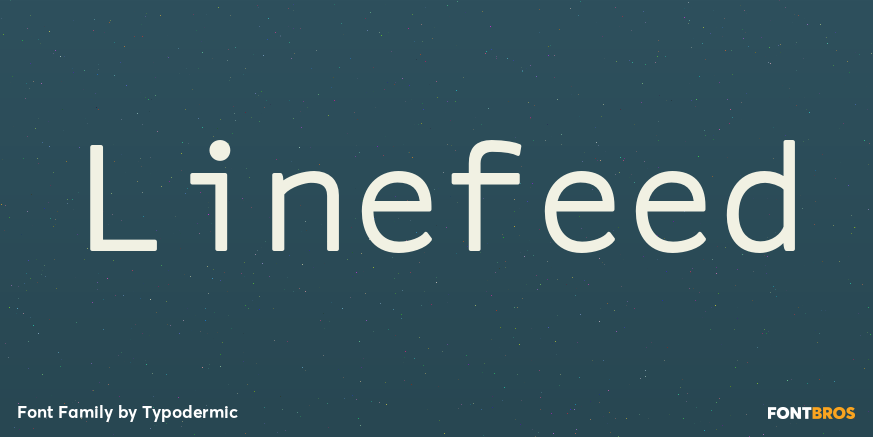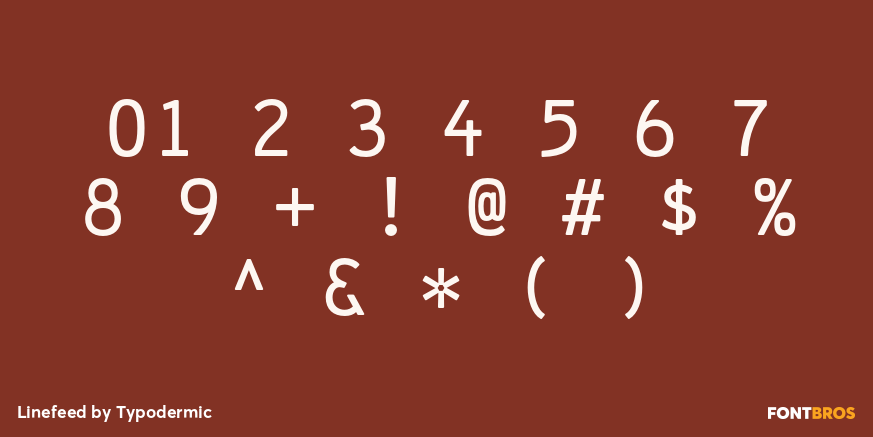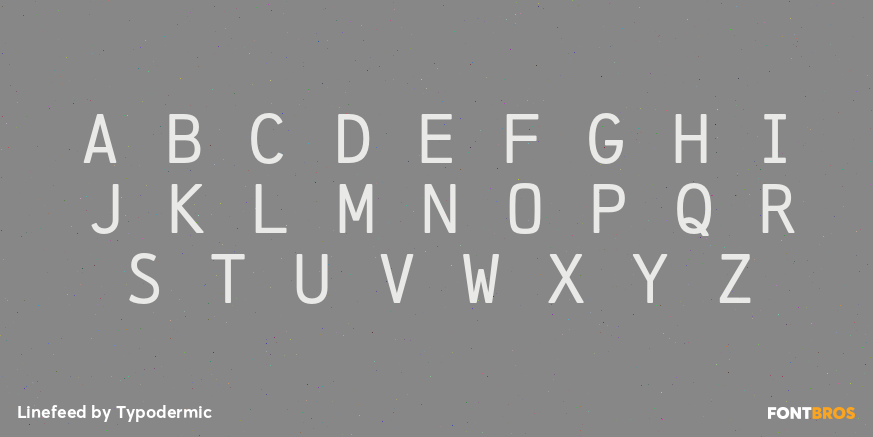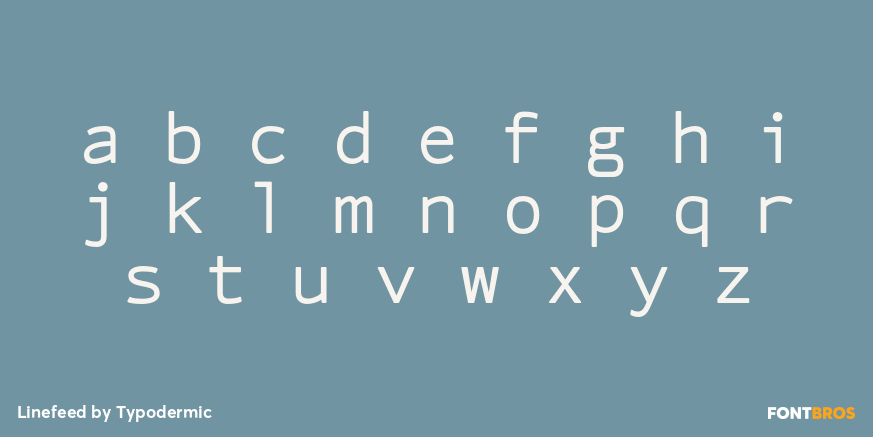
Linefeed
Buy NowLinefeed is for information that needs to look recorded rather than written.
Technical documents increasingly mix two voices: the explanation of what happened and the record of what the system actually captured. Set both in the same corporate sans and the distinction disappears. Use a programmer’s monospace and the record starts to look like source code; use a distressed computer face and a current system suddenly looks historical. Linefeed gives machine-generated evidence its own typographic layer without pushing the design toward either coding culture or retro computing.
Its monospaced rhythm comes from 1960s and 1970s band-printer output, particularly subscription labels and institutional records. Because those machines generally worked in capitals, Linefeed extends the vocabulary with a lowercase designed to belong to the same mechanical system. The forms remain clean rather than artificially worn, allowing the machine-output character to work comfortably in contemporary reports and interfaces.
AI evaluation and agent-tracing systems are a particularly strong fit. Run IDs, model versions, timestamps, tool calls, execution steps, scores and audit excerpts can be visually separated from the analyst’s explanation. Industrial inspection and quality-control systems can use Linefeed for batch numbers, measurements, machine IDs, tolerances, calibration histories and pass/fail records.
Equipment service histories create another natural role. EV batteries, industrial tools, rental equipment, professional hardware and durable appliances can accumulate manufacturing dates, component identifiers, repair events, firmware revisions and recertification records over years of use. Linefeed gives that chronology the character of a system ledger rather than ordinary brand copy.
Cybersecurity and digital-forensics reports can use the same distinction for login histories, filenames, event IDs, authentication attempts and extracted status messages. Asset-management and logistics systems can apply it to depot scans, shipment events, maintenance records and status changes attached to high-value equipment or reusable transport packaging.
Its historical source remains useful for computing museums, documentaries, period productions and games that need reconstructed band-printer output, subscription labels or institutional records while still requiring lowercase language.
Linefeed gives the recorded layer inside a report, audit or interface a distinct voice: the part that says the system logged this.